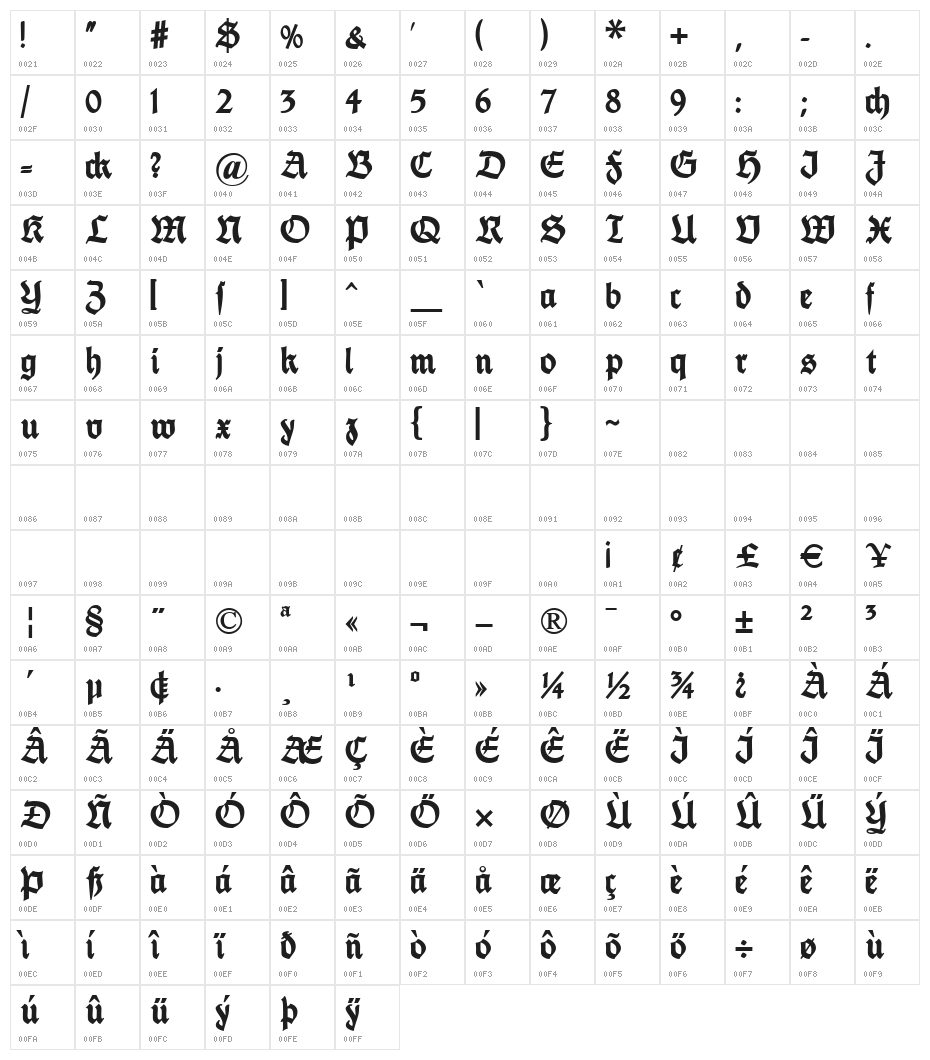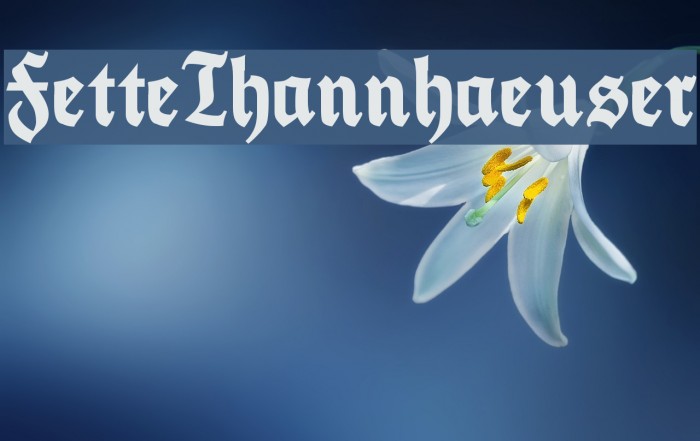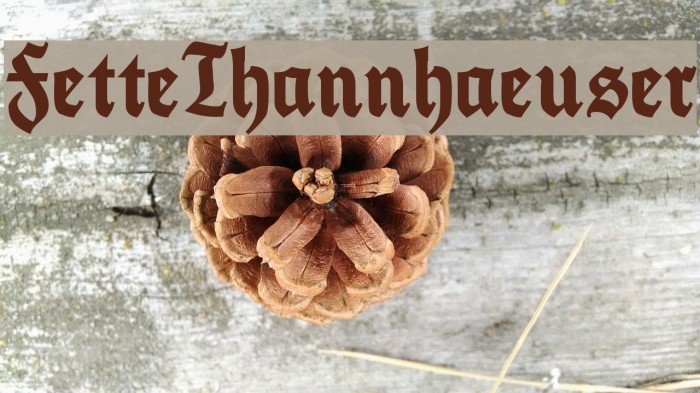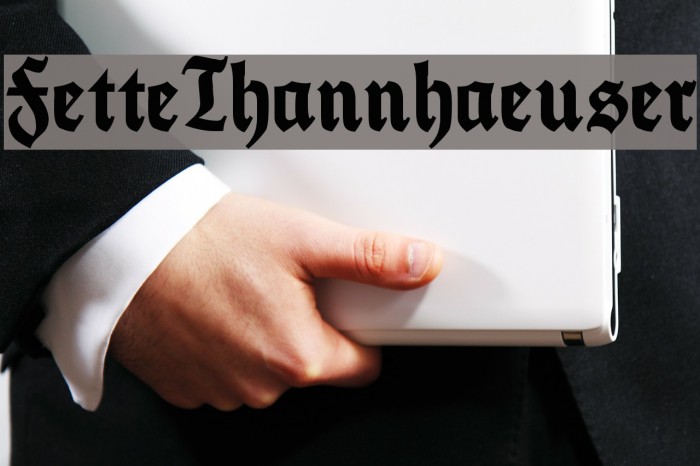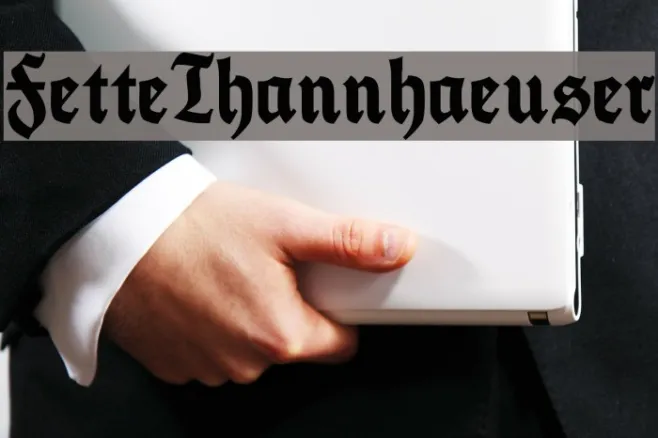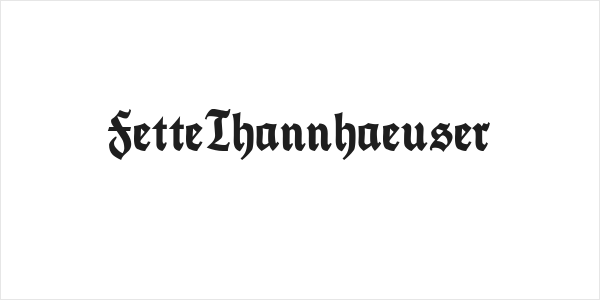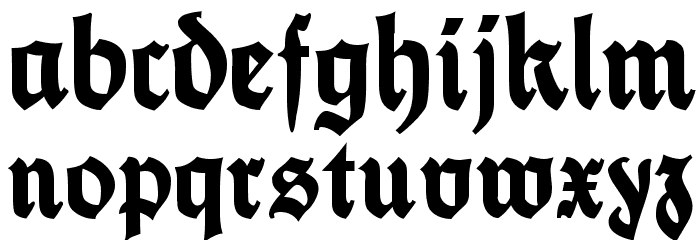
FetteThannhaeuser Font
FetteThannhaeuser Description
This font is a bold and striking blackletter typeface, characterized by its dramatic and ornate letterforms. The uppercase letters exhibit a strong, angular design with sharp serifs and intricate detailing, reminiscent of traditional Gothic script. The lowercase letters maintain the same boldness, with a slightly more rounded appearance, yet still retaining the distinct blackletter style. Numbers and special characters are equally bold and decorative, fitting seamlessly with the overall aesthetic. The font's historical and medieval feel makes it ideal for projects that require a touch of elegance and tradition.
Fonts by Dieter Steffmann
| Proposed Projects | Ideal for historical documents, wedding invitations, book covers, and branding that requires a classic or medieval touch. |